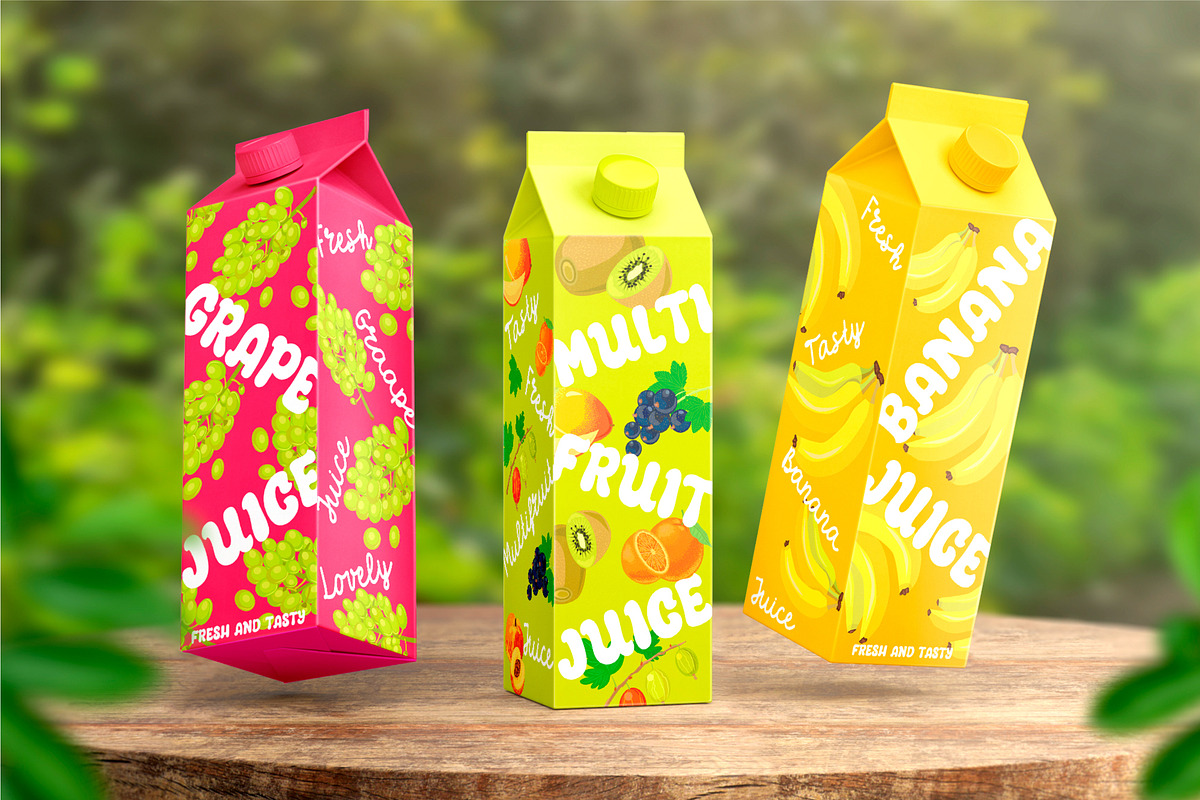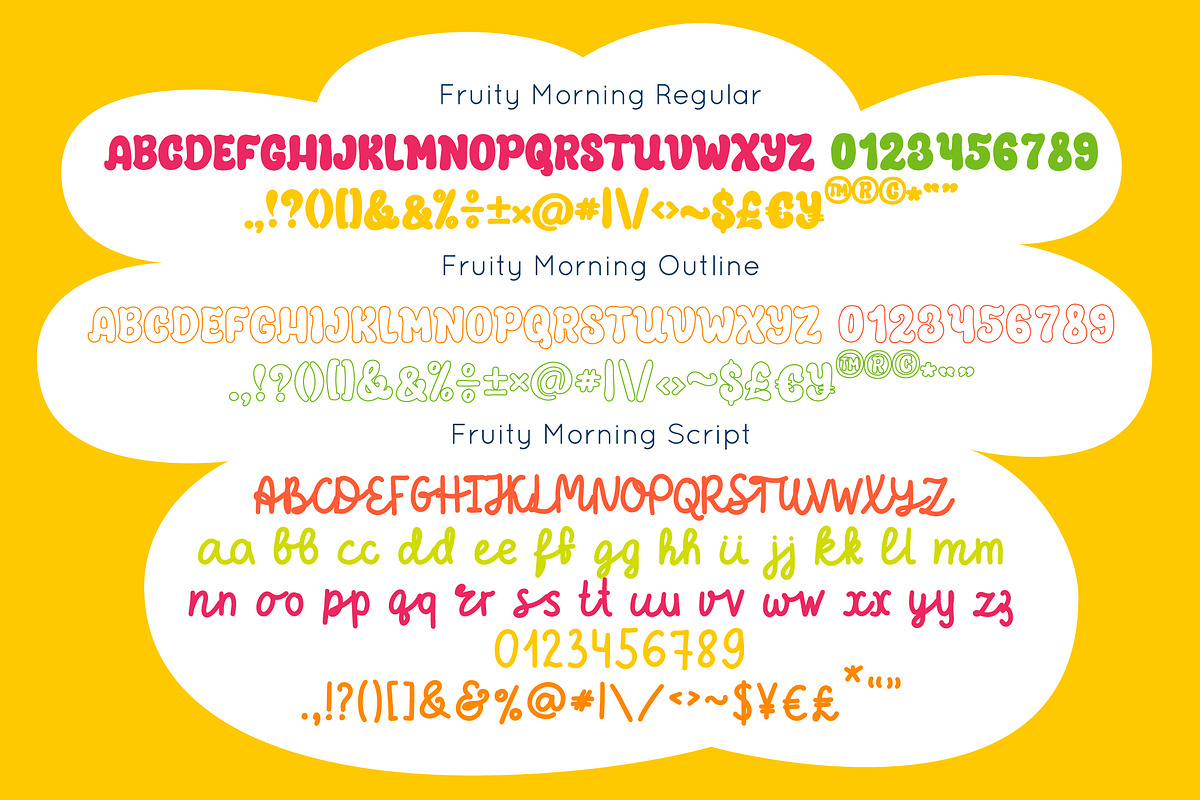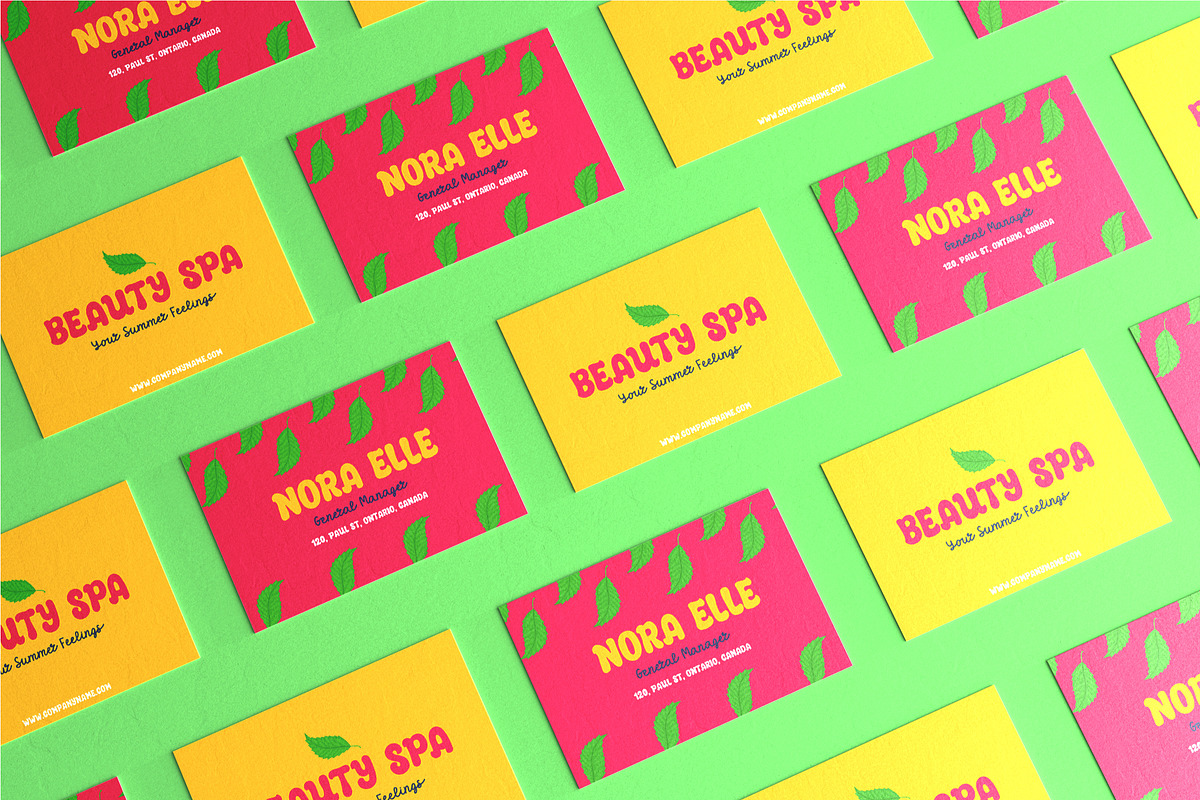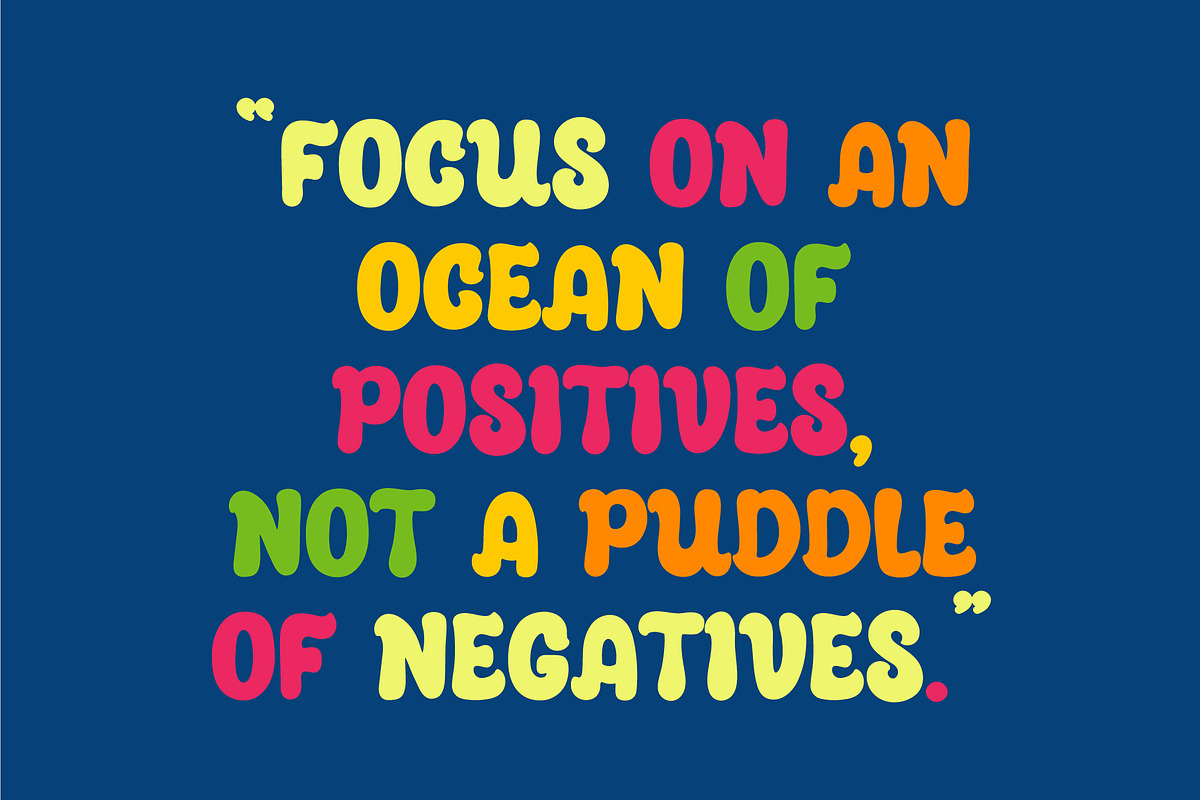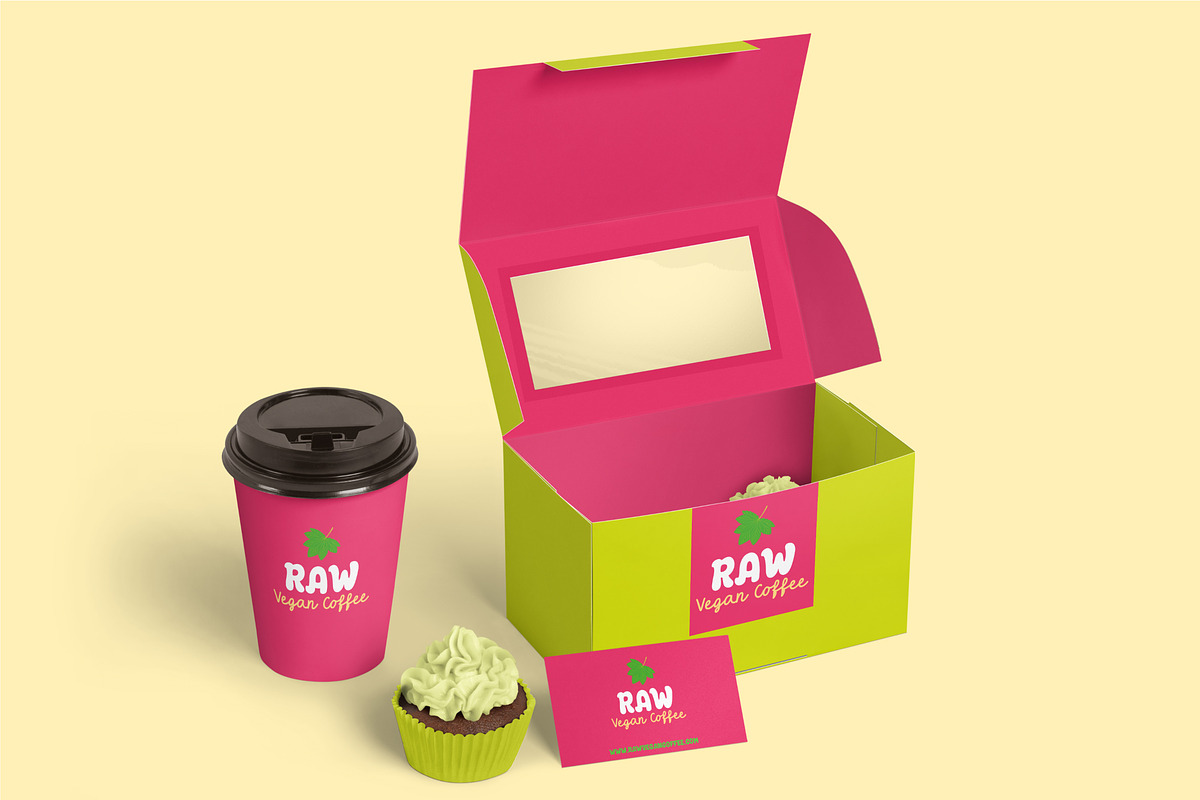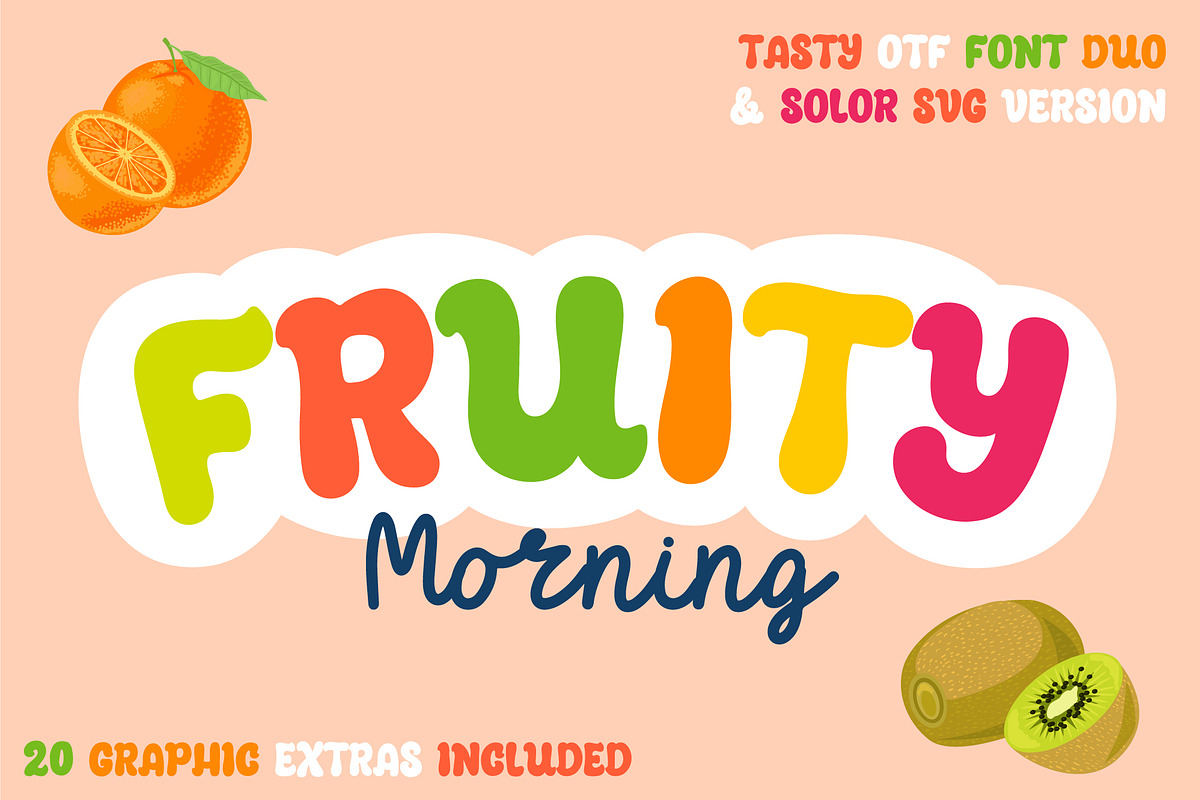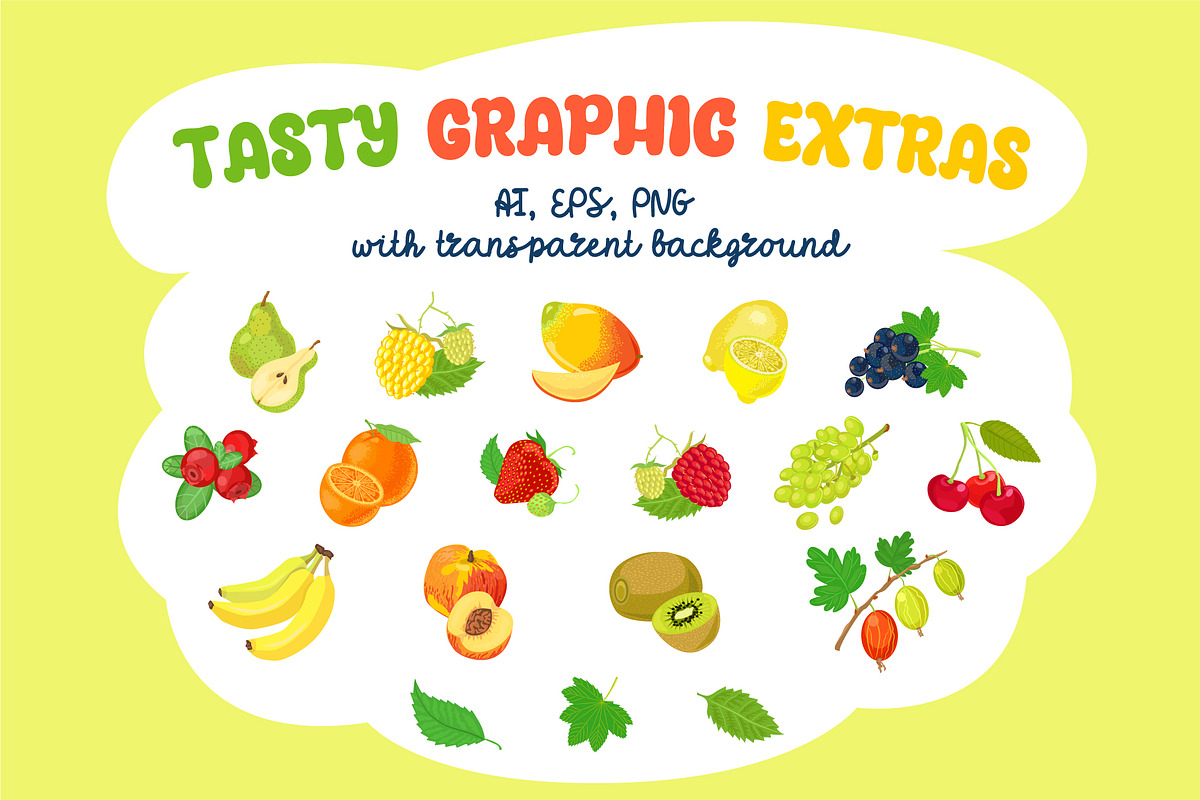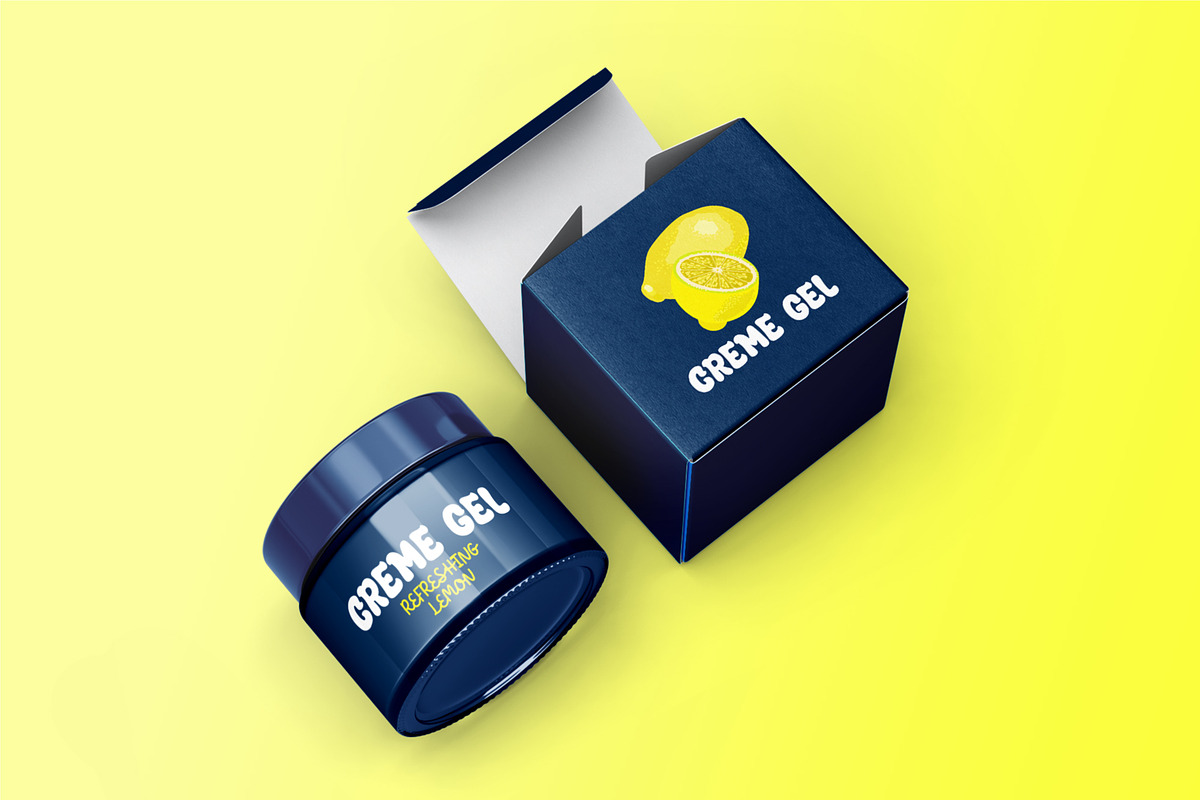
Fruity Morning - Font Family
FRUITY MORNING is a super fun and "playful font family". It includes regular bold typeface, outline version, hand-lettered script and Color SVG bold typeface. Also tasty vector graphic elements- fruits and berries- for your summer design included.
Awesome decision for your branding, design and projects! This pack looks classy and professional at the same time.
FRUITY MORNING font collection works great in mood boards, posters, logos, headlines, packaging, advertising, branding and so much more. Just create the best childish or romantic, urban or rustic, elegant or dynamic designs.